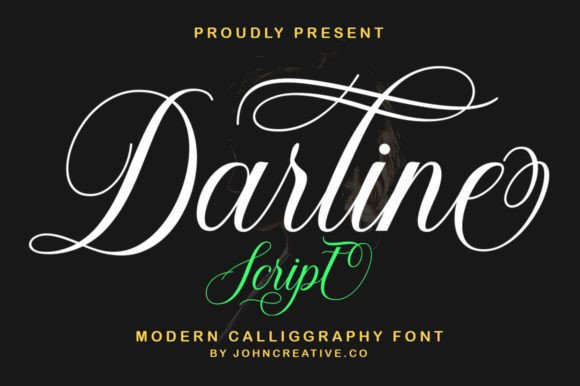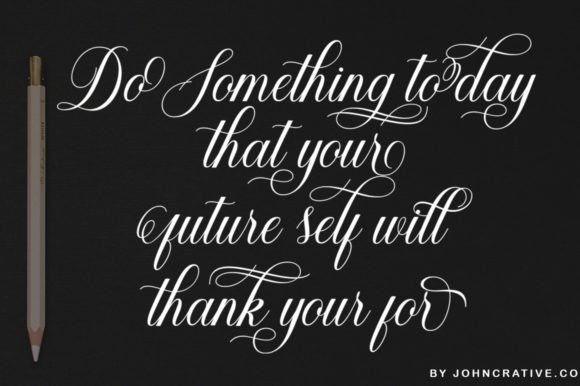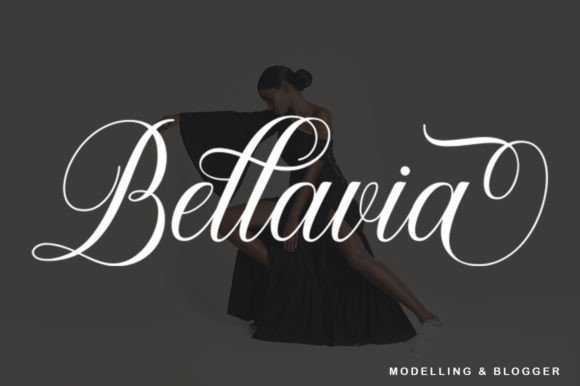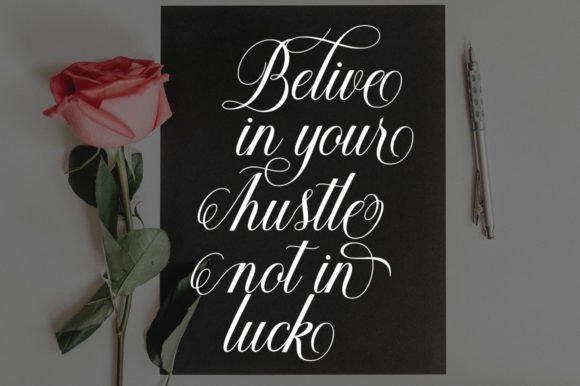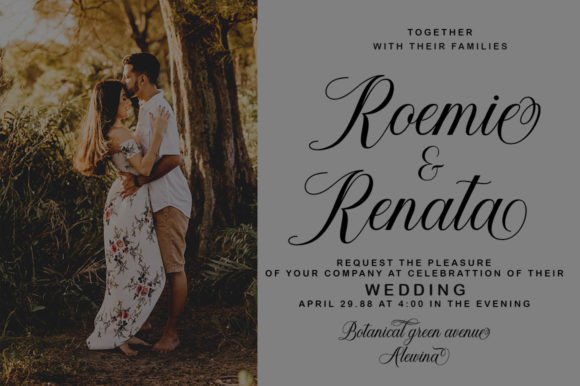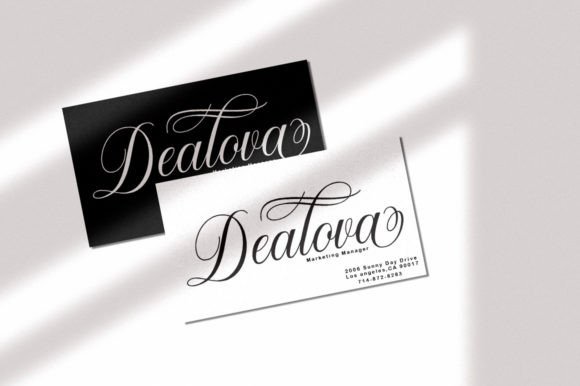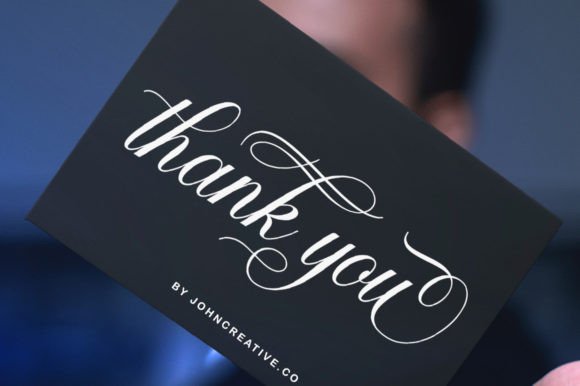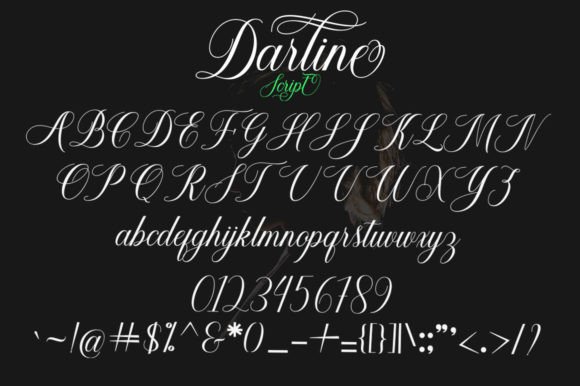
Darline Script Font
About Darline Script Font
Darline Script Font Download brings sophistication, grace, and authenticity to every design. This stylish handwritten script font is perfect for making elegant statements while maintaining a personal and approachable feel. Whether you’re creating branding elements, product labels, greeting cards, or custom crafts, Darline Script will give your project a refined, professional touch.
A Confident and Charming Script Style
Darline Script is more than just another handwriting font—it’s a display of elegance and personality. Its smooth curves, flowing strokes, and carefully crafted ligatures make it ideal for delivering messages with confidence and charm. Each letter carries a sense of intention, making your words look as if they were penned by a skilled calligrapher.
From wedding stationery to boutique branding, this font feels right at home. It effortlessly bridges the gap between creative expression and upscale design.
Designed for Versatility and Impact
One of the strengths of Darline Script is its ability to adapt across various use cases. It’s excellent for:
• Business branding and personal logos
• Handmade product labels
• Greeting and invitation cards
• Quotes and merchandise designs
• Blog headers and social media posts
Thanks to its polished design, the font retains clarity even when used in small sizes or longer passages. It also works well in both print and digital formats, ensuring consistency across platforms.
Darline Script supports OpenType features, including stylistic alternates and ligatures, which enhance the organic flow of handwriting. These features are available in design programs that support OpenType, but even in basic applications, the standard character set remains elegant and versatile.
Add Personality to Every Project
If you’re creating a brand that needs to feel both classy and relatable, Darline Script is a strong choice. The handwritten aesthetic creates a sense of authenticity, while the elegant curves add professionalism and style. It works wonderfully on packaging for handmade goods, artisan products, beauty brands, and fashion lines.
Need a font for quotes or inspirational messages? Darline Script offers enough character to make those words pop while maintaining a natural handwritten charm.
There are many script fonts out there, but few offer the blend of sophistication and accessibility that Darline Script provides. It’s confident without being flashy, stylish without being overdone. It adapts to the needs of designers, creators, and business owners alike.